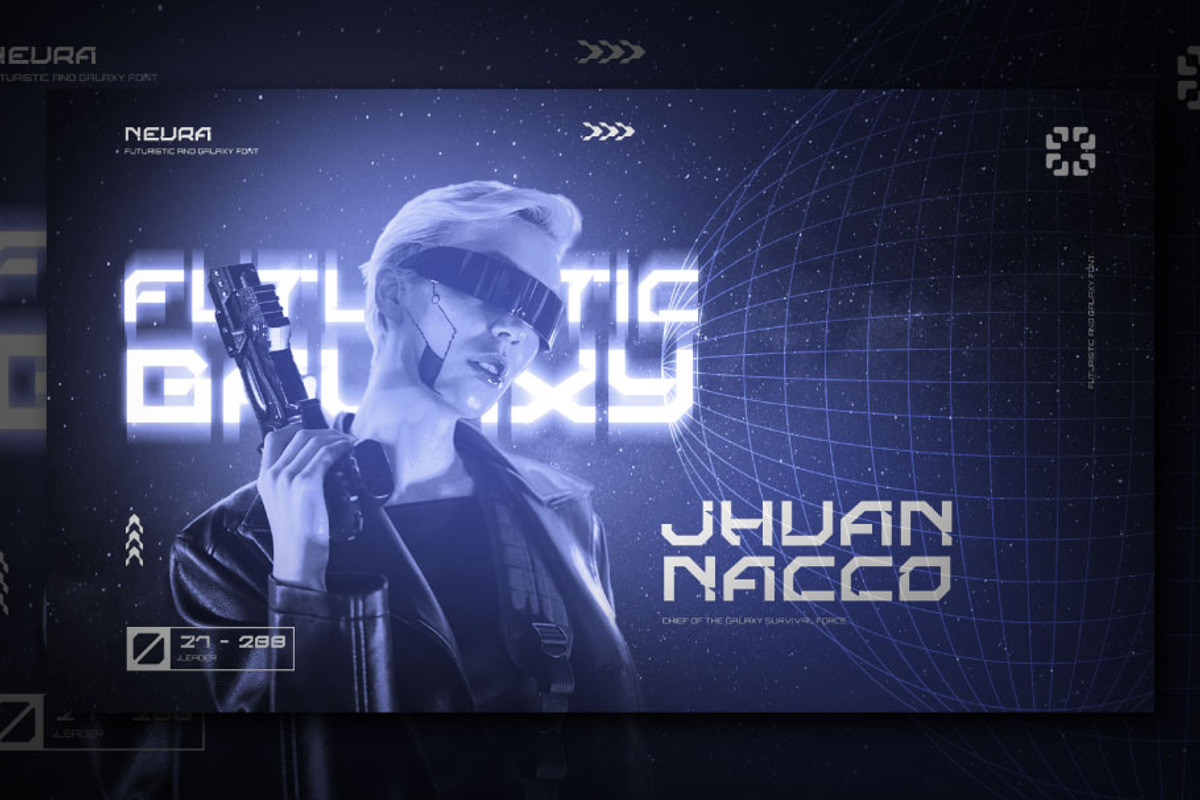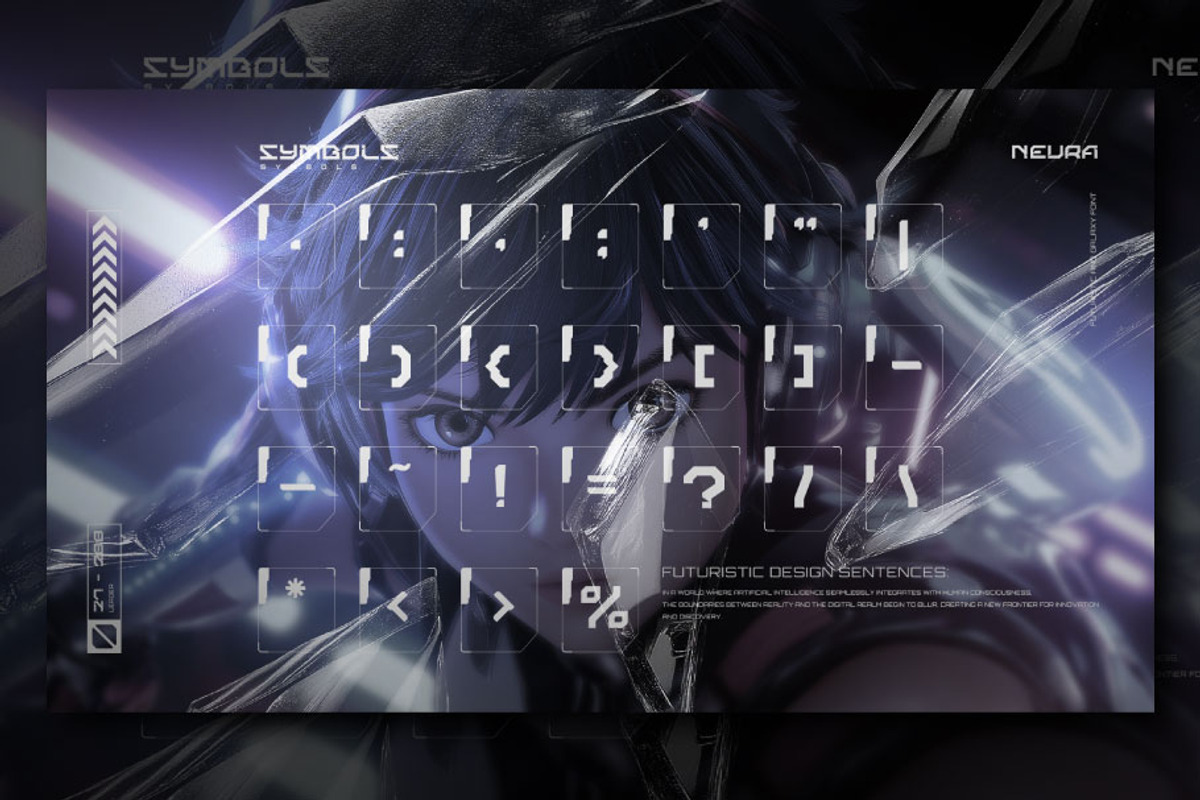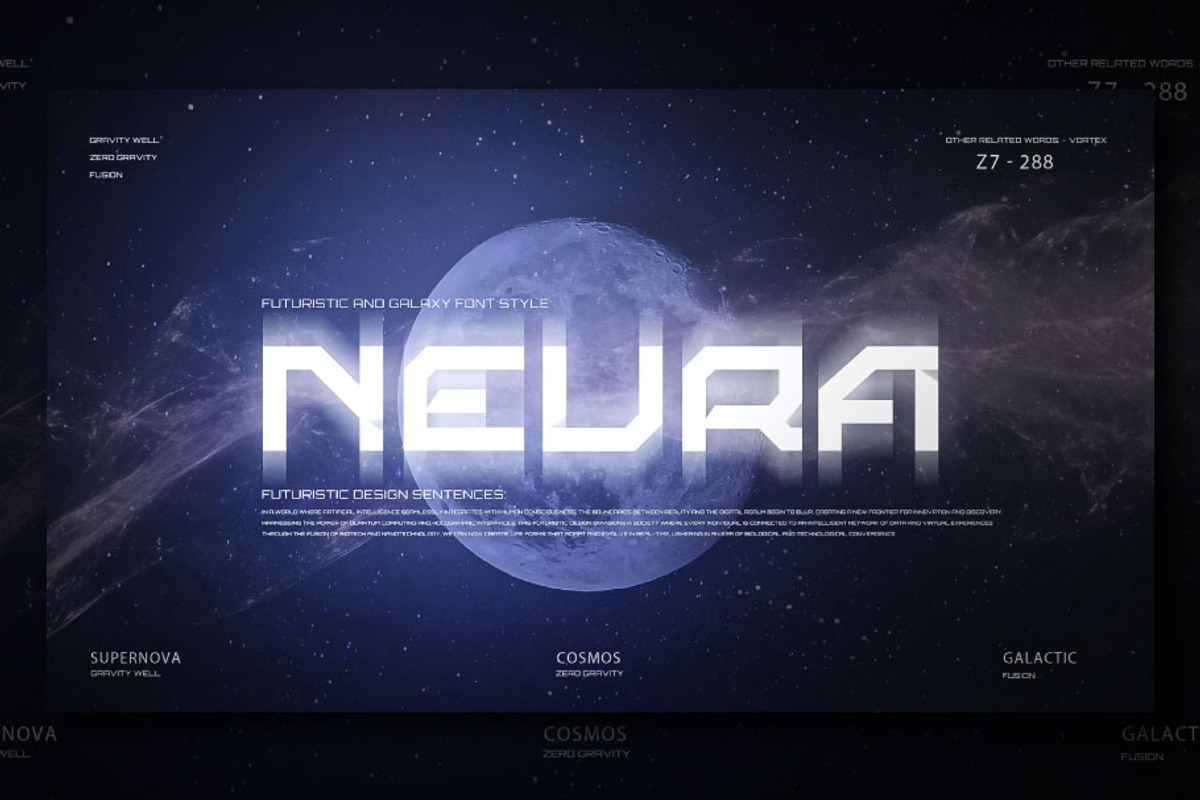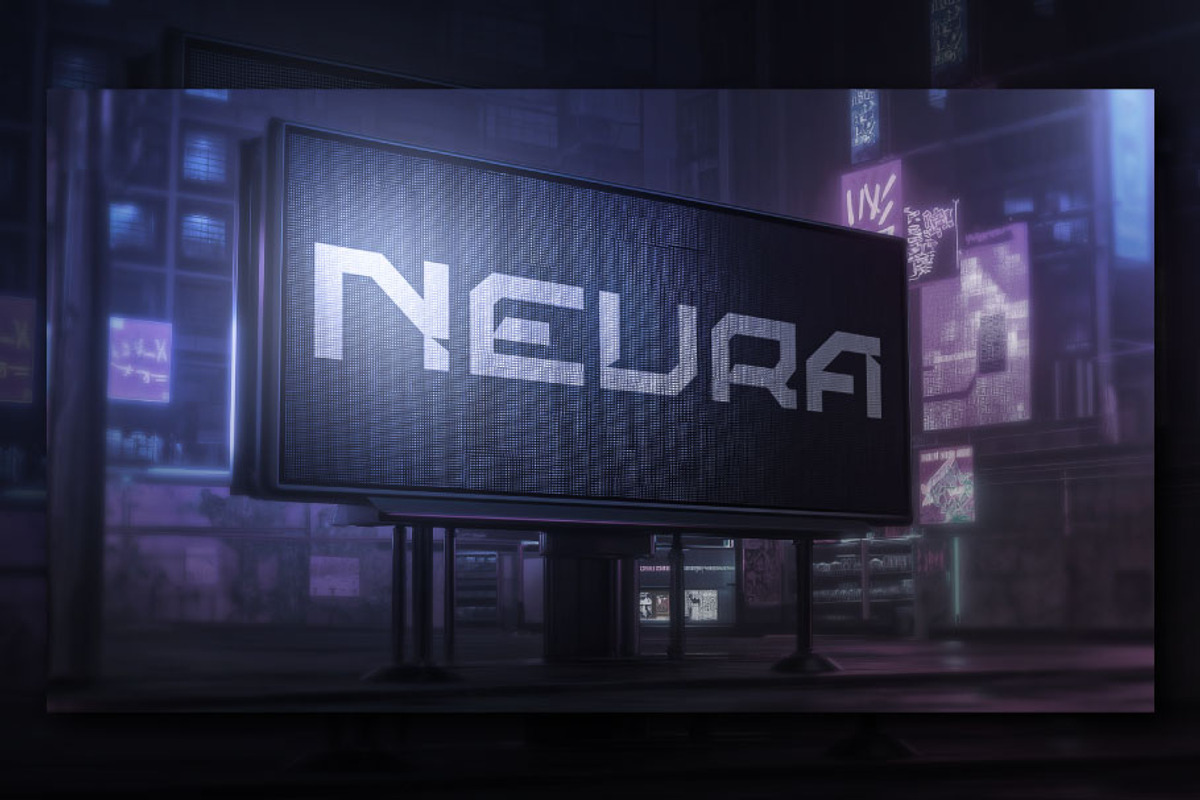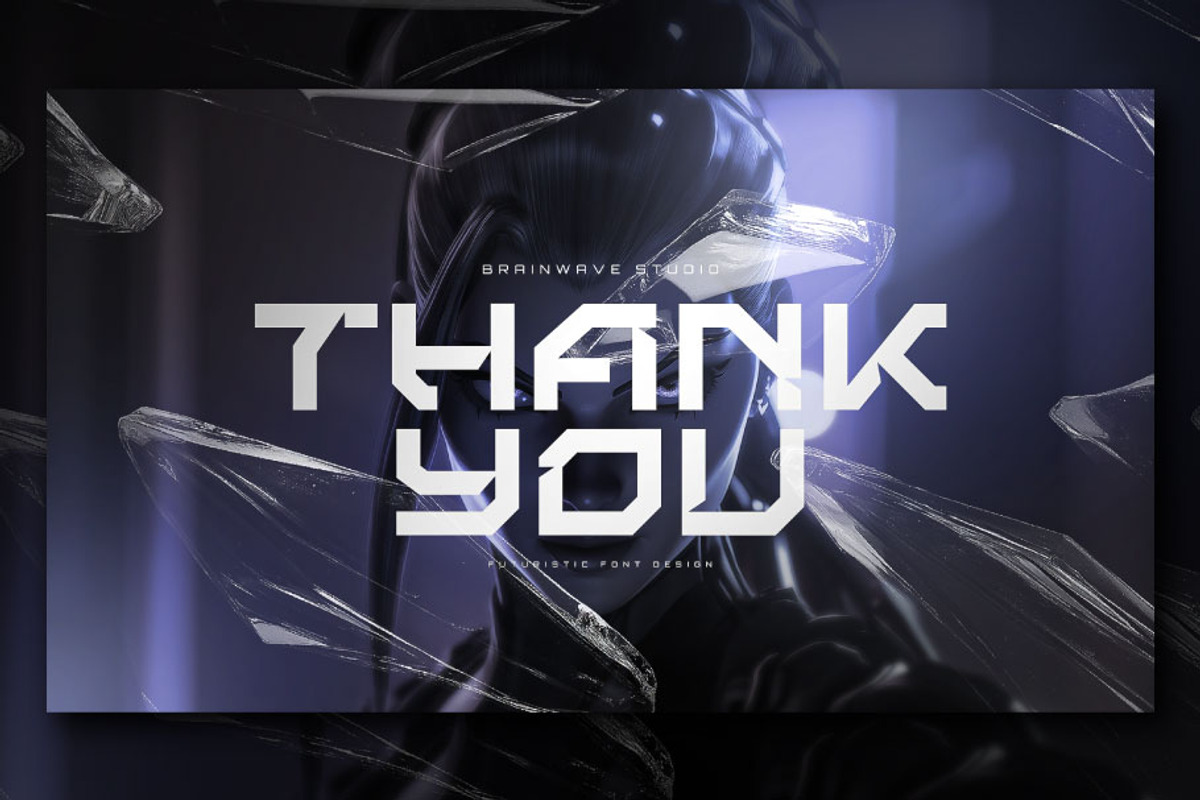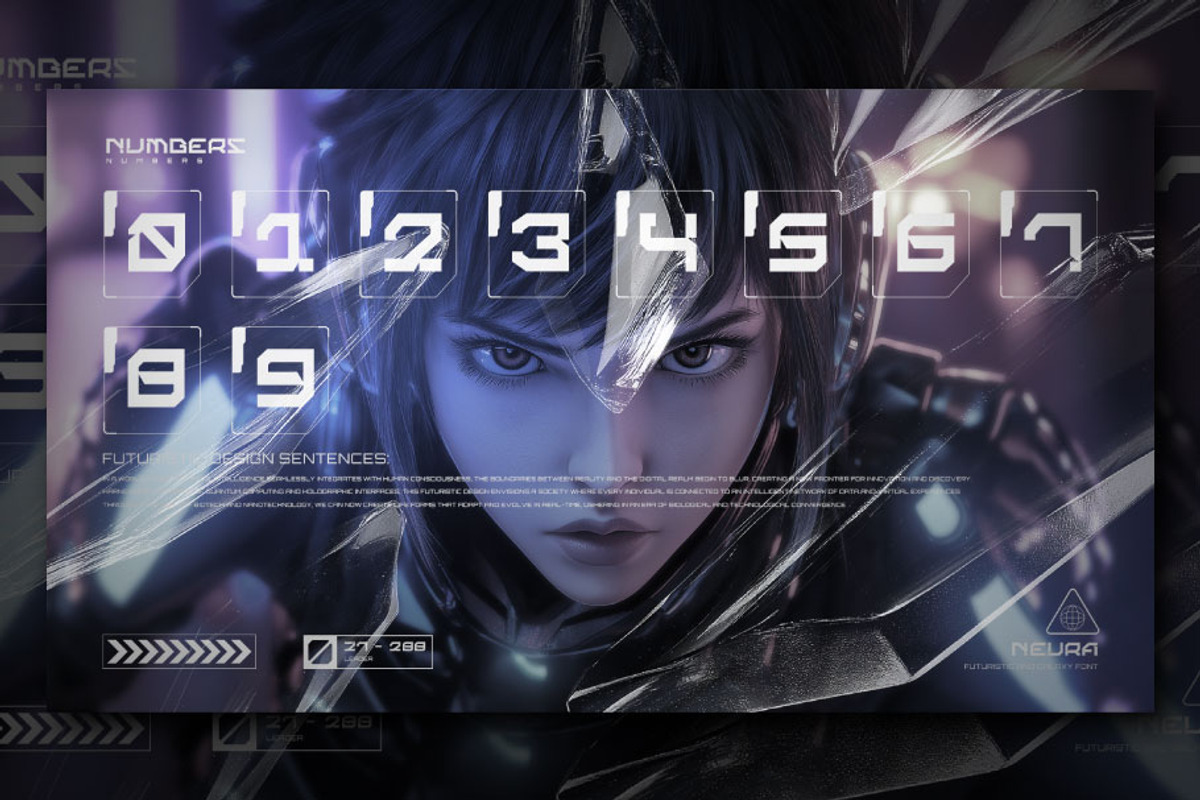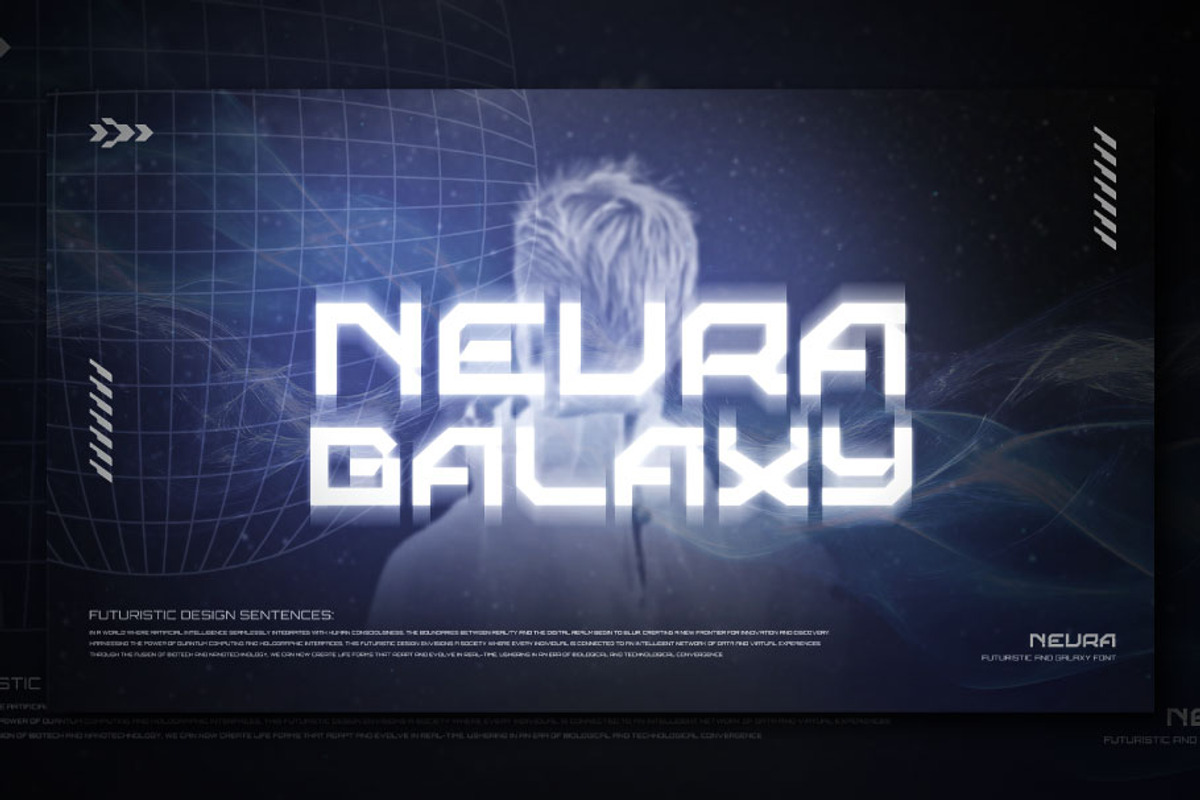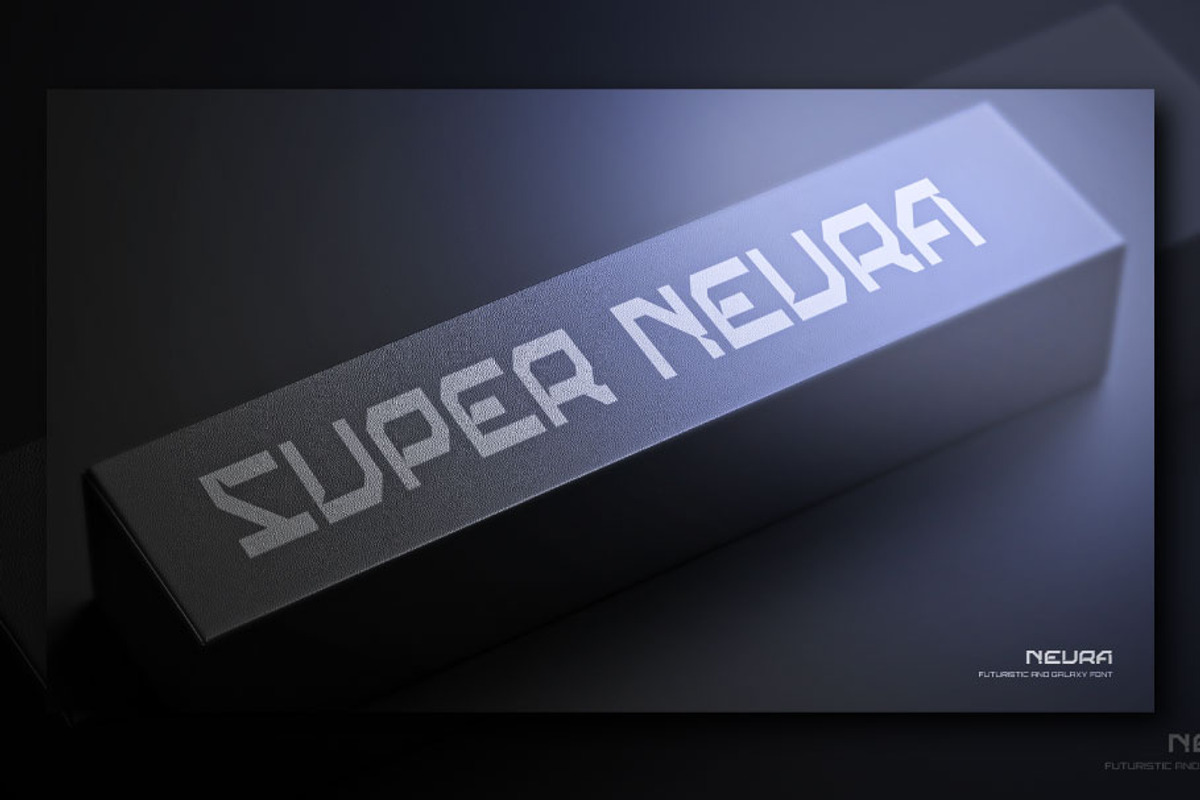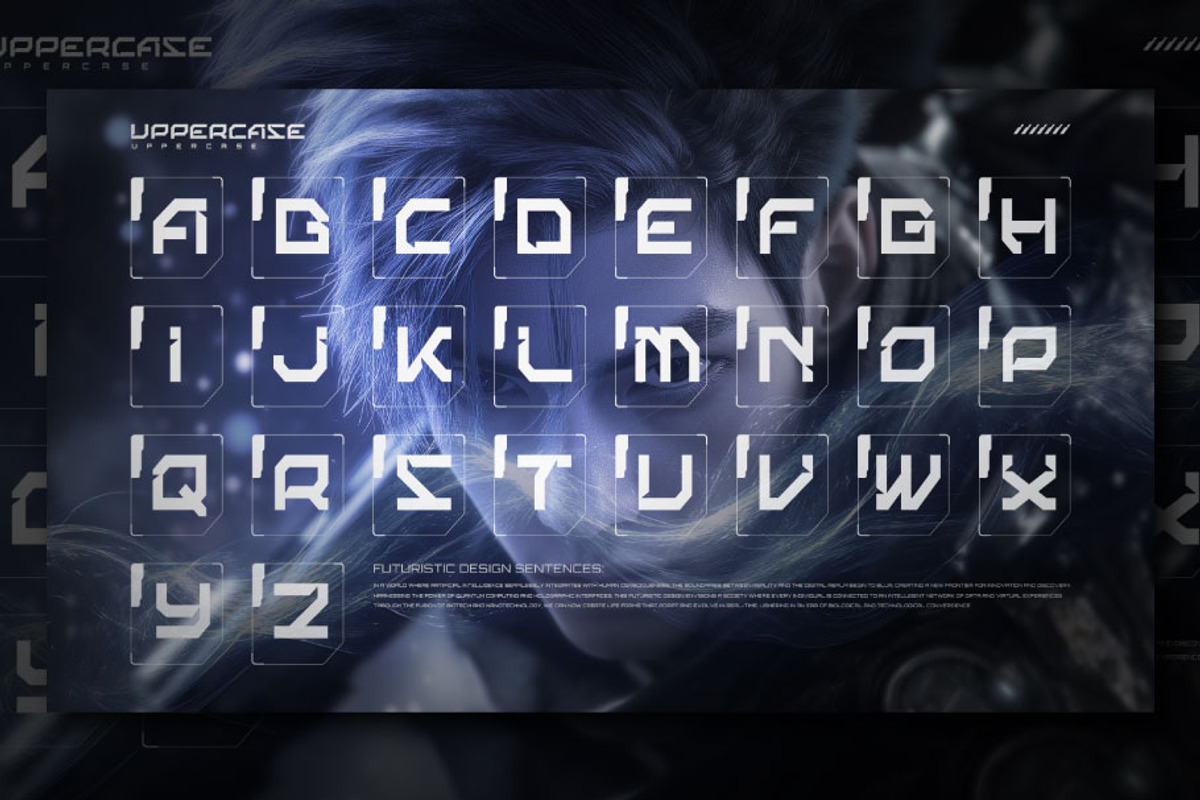
NEURA - Futuristic & Galaxy Font
NEURA This font combines futuristic and galaxy-inspired elements, creating a visual impression that links advanced technology with the limitless beauty of the universe. Its letterforms are inspired by sharp, elegant geometric shapes, conveying a modern vibe, while thin lines and glowing effects suggest the depth of outer space. Ideal for design projects focused on innovation, space exploration, or concepts that emphasize technological progress. This font is the perfect choice to evoke a futuristic atmosphere full of mystery and adventure